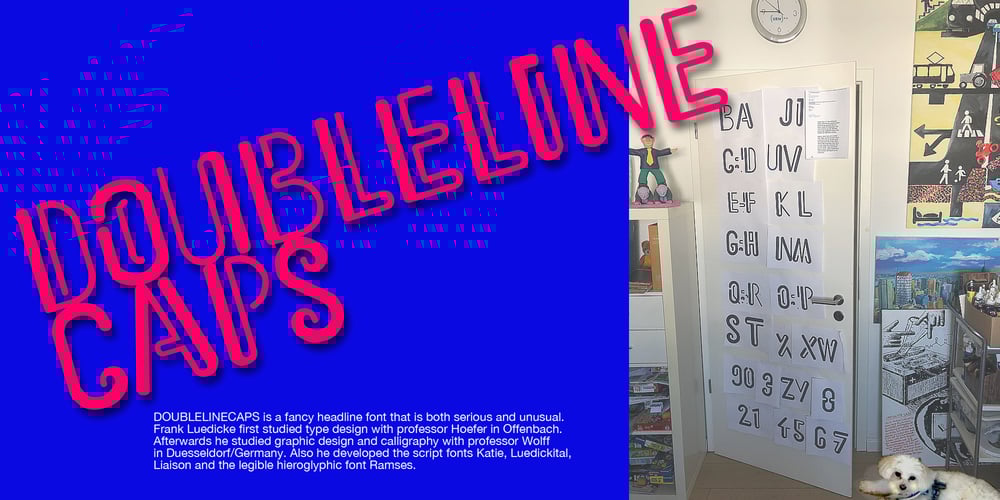
Doubleline Caps Font Family was designed by Frank K. Lüdicke and published by URW Type Foundry. Doubleline Caps contains 1 styles and family package options. The basic idea for this headline typeface is to create strictly geometric letters, similar to script typeface, as far as possible in a single sweep, without setting them down. And similar to a typeface written with a quill, there is a thin and a thicker stroke. The upercase letters can also be used with the lowercase keys. The varied and unusual variety of forms in this typeface gives headlines, keywords and even short texts the attention they are looking for.